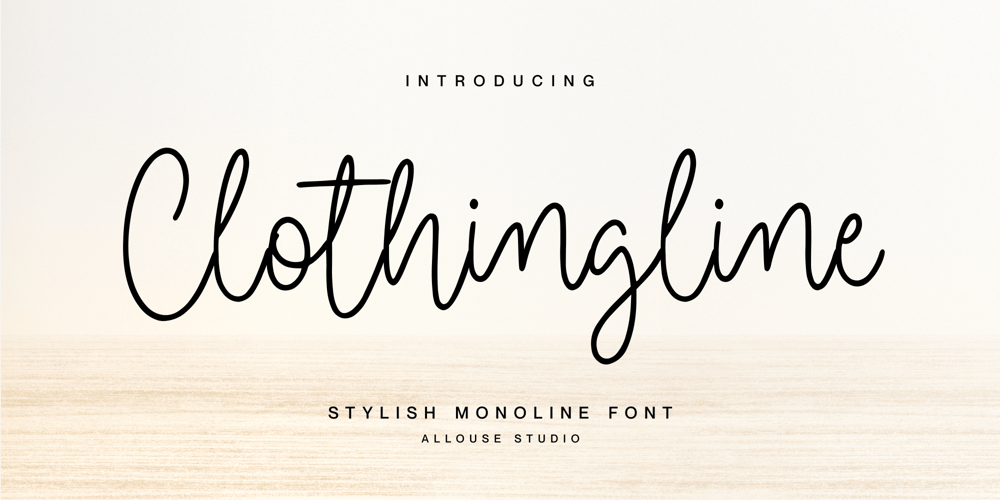
Clothingline Font Family was designed by Fachrizal Yusuf and published by Allouse Studio. Clothingline contains 1 styles and family package options. Proudly Presenting, Clothingline a Stylish Monoline Font.Clothingline is perfect for any titles, logo, product packaging, branding project, megazine, social media, wedding, or just used to express words above the background.Clothingline also come with Multi-Lingual Support.Enjoy the font, feel free to comment or feedback, send me PM or email. Thank You!